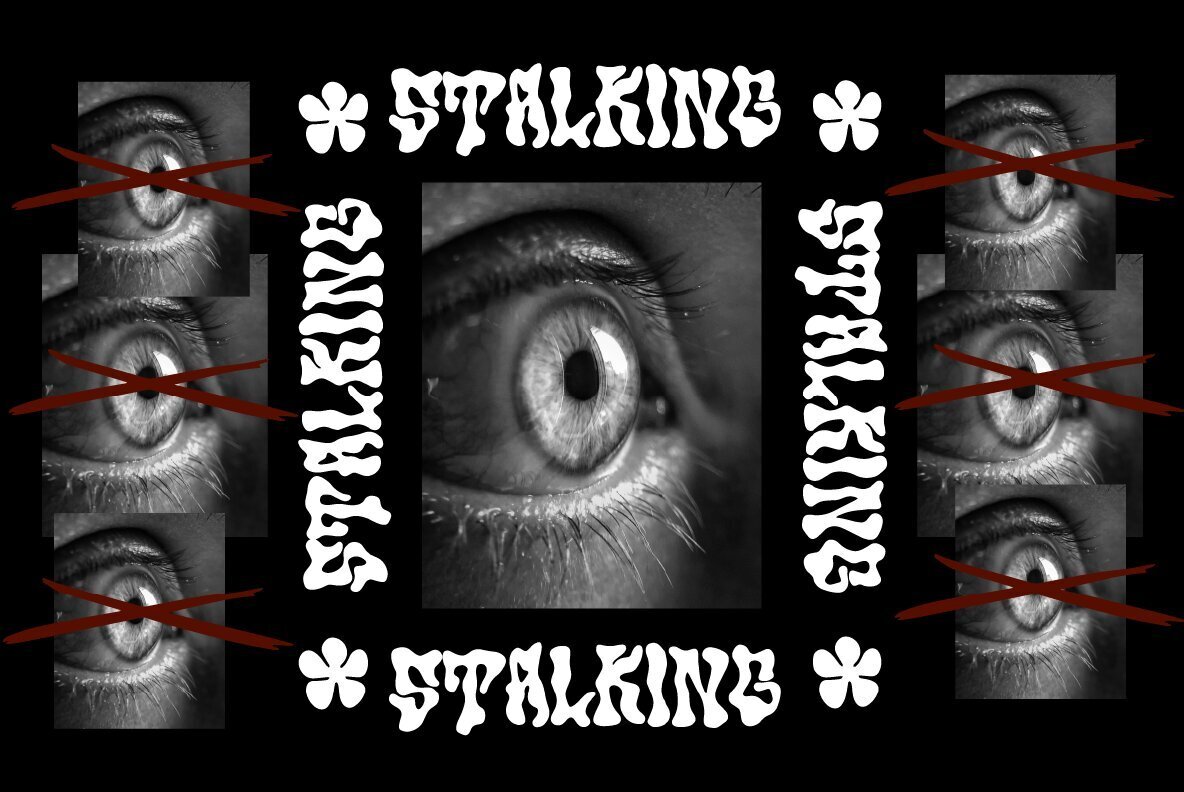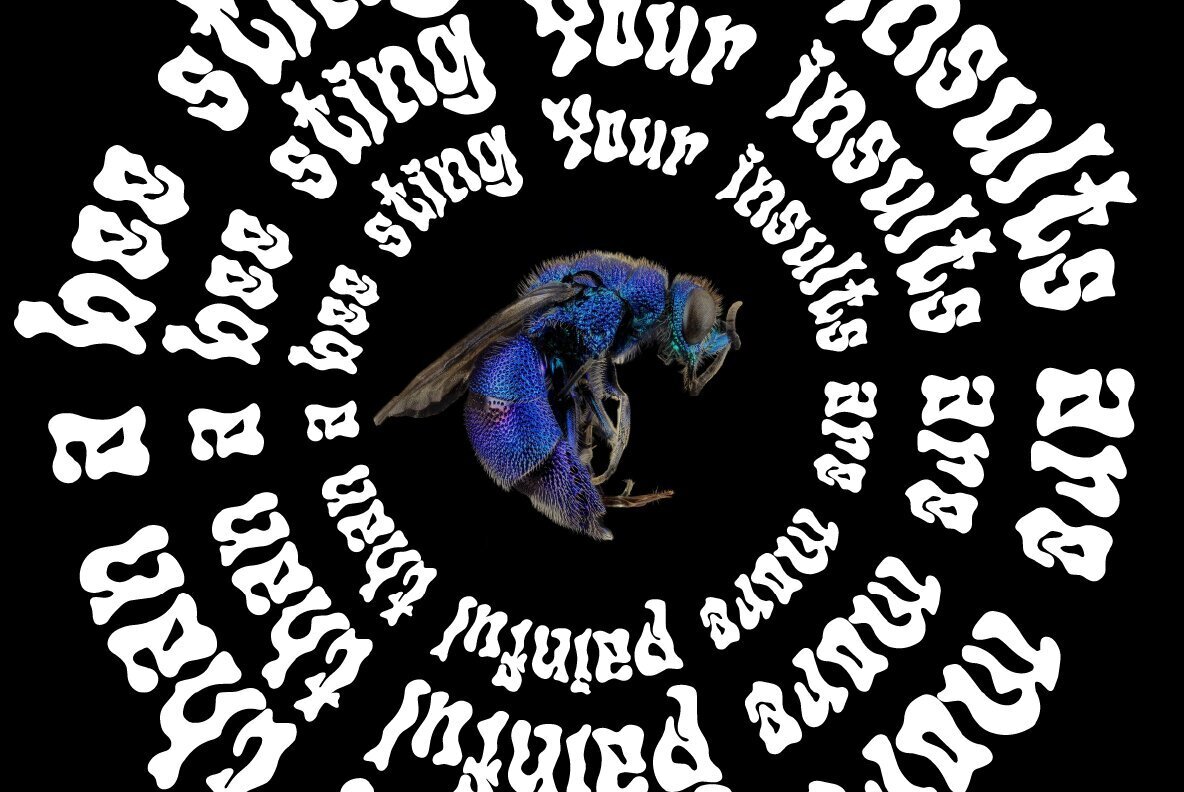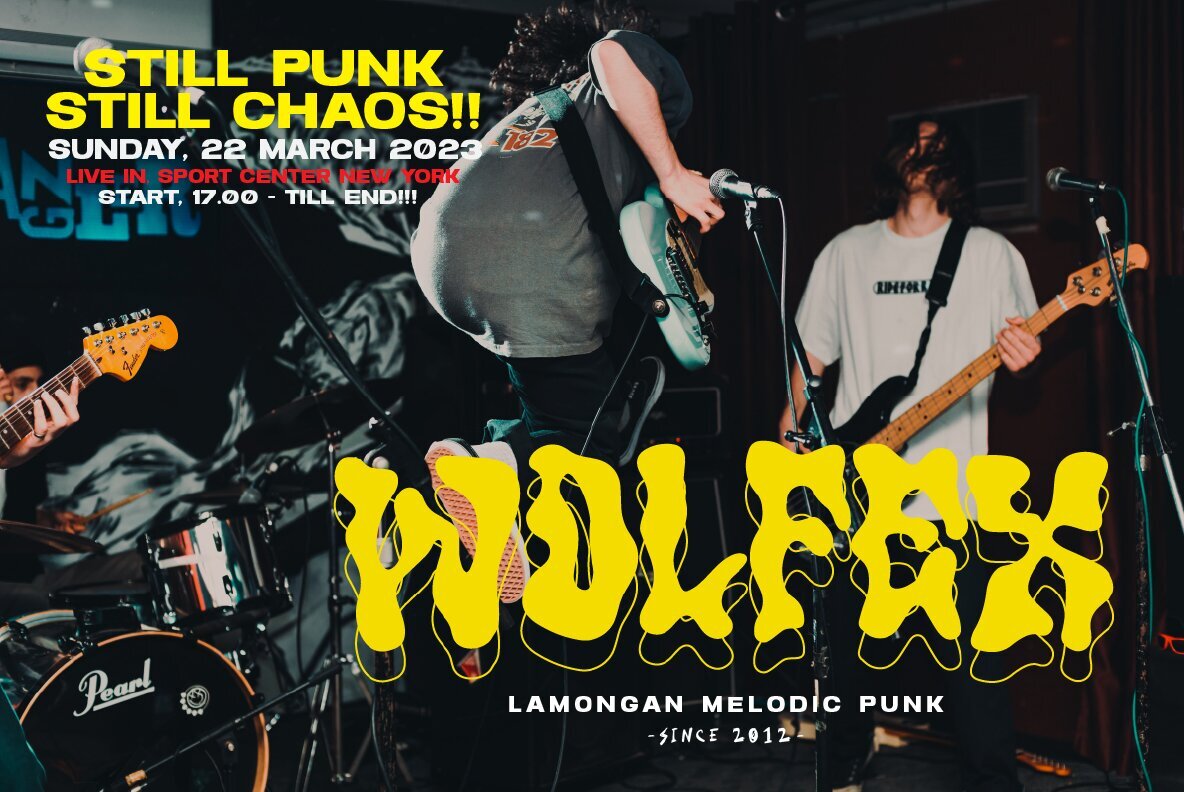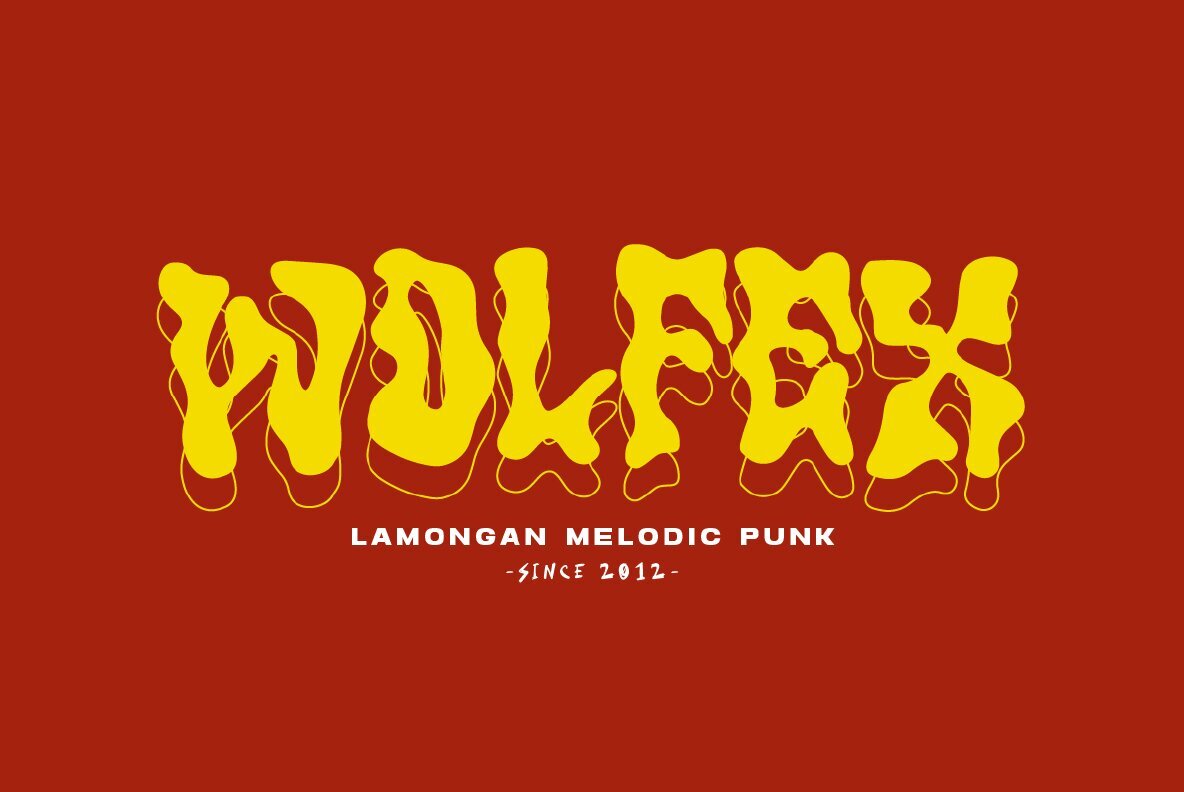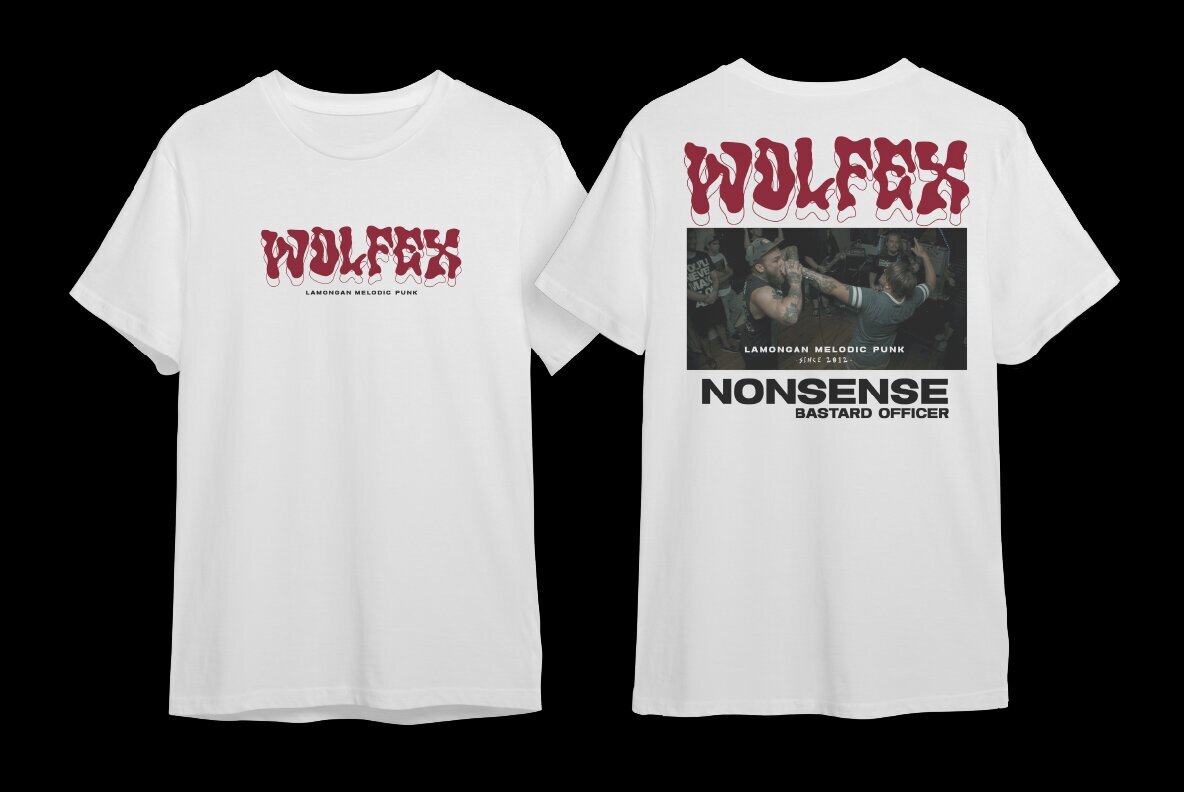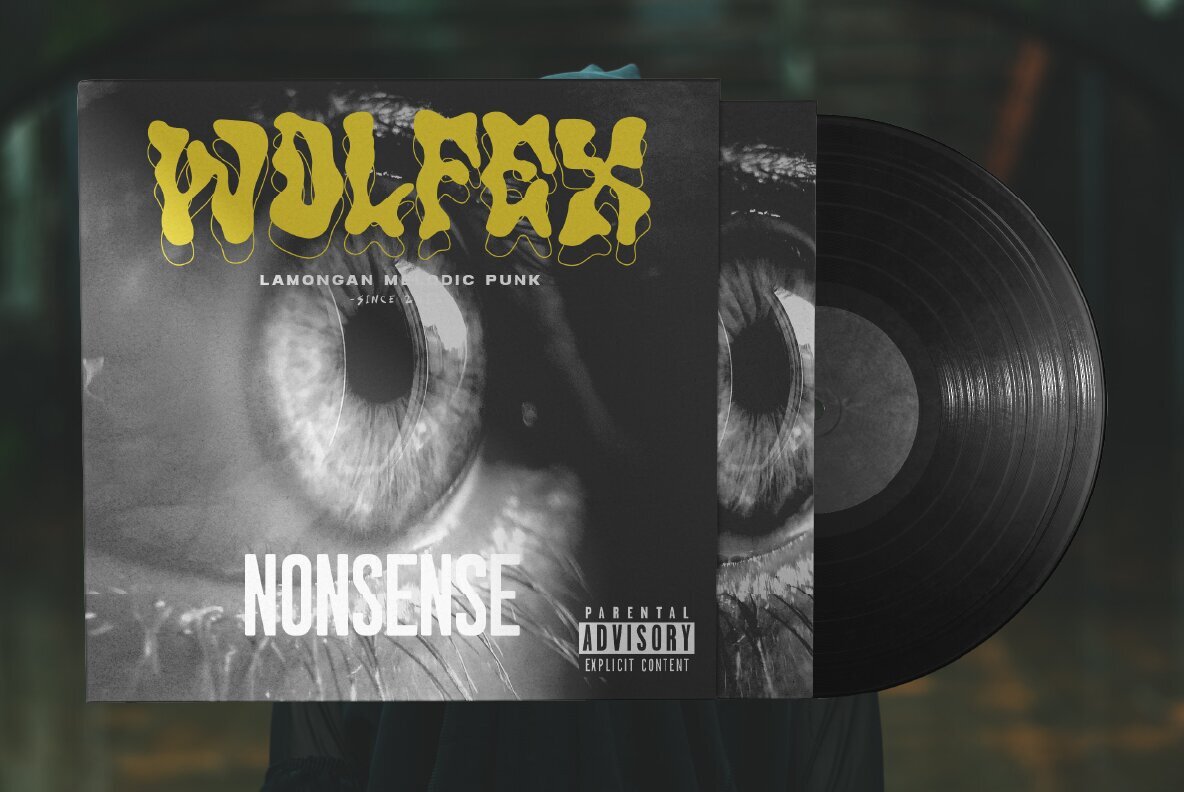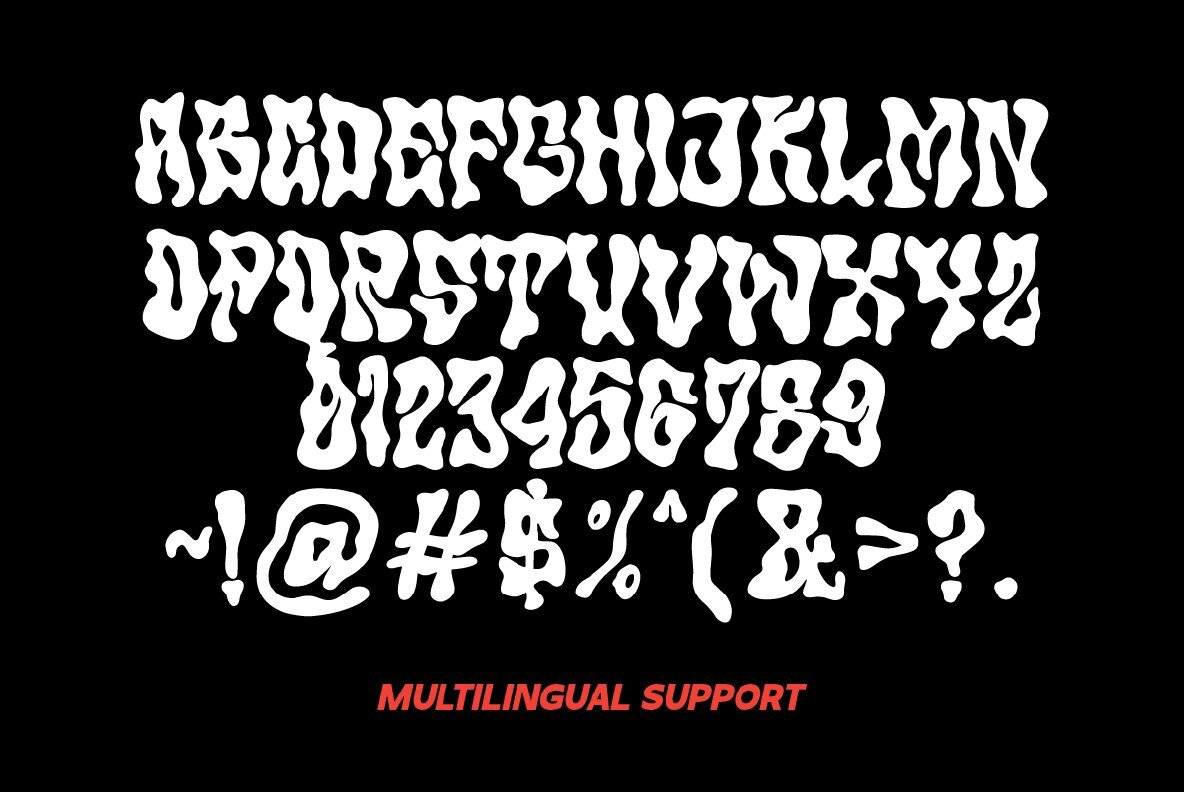
Grinder Font
Grinder
Grinder it's retro, bold, and playful, really ties together your piece to give it that retro feel. This is font perfect for designers who are looking to add a psychedelic acid graphics contemporary hand-done touch to their projects. be it posters, magazines, Instagram, online, or branding. whatever you want to spice up with a little liquid text Grinder is the tool.
- Lowercase & Uppercase
- numbers and punctuation
- multilingual